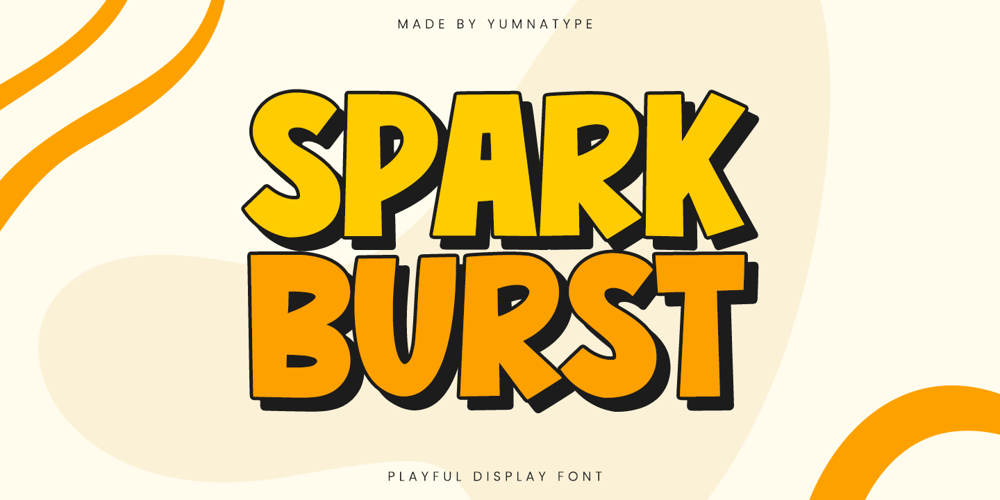
Spark Burst
Spark Burst font
Spark Burst Font Family was designed by Donis Miftahudin and published by Yumna Type. Spark Burst contains 1 styles and family package options. Spark Brust is an energetic and playful display font designed to make your projects shine. Created in all caps, this font brings a bold and vibrant presence to any design, ensuring your message stands out with clarity and style.The playful essence of Spark Brust is evident in its rounded shapes, which add a touch of softness and approachability. The low contrast between the strokes maintains a smooth and cohesive look, making it perfect for both casual and professional settings. In addition, enjoy the features here.Features: Multilingual Supports PUA Encoded Numerals and Punctuations Spark Brust fits in headlines, logos, posters, flyers, branding materials, print media, editorial layouts, and many more designs. Find out more ways to use this font by taking a look at the font preview.Thanks for purchasing our fonts. Hopefully, you have a great time using our font. Feel free to contact us anytime for further information or when you have trouble with the font. Thanks a lot and happy designing.